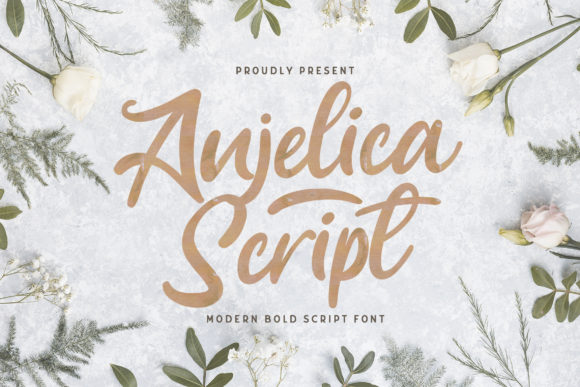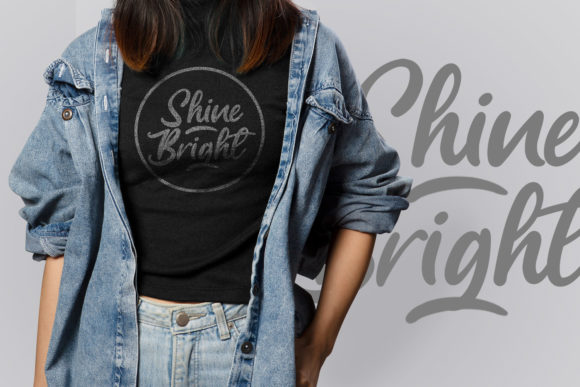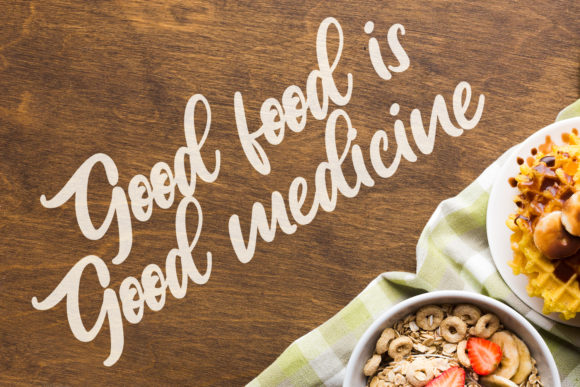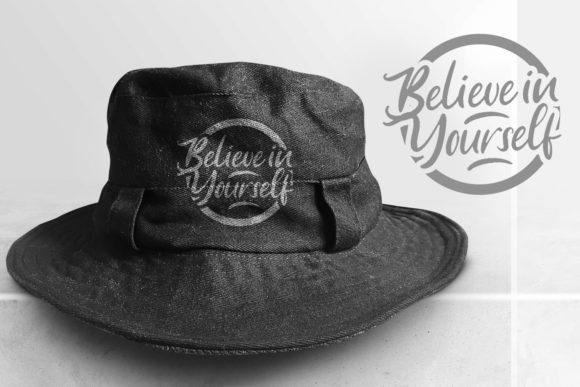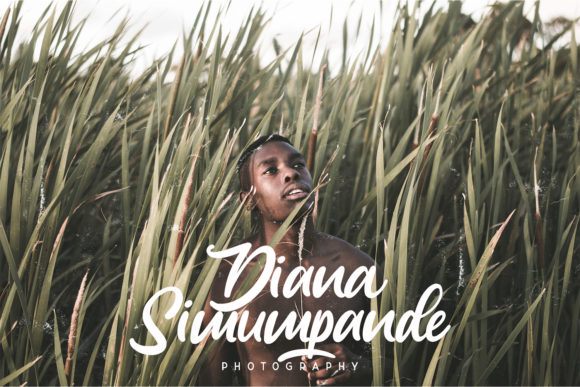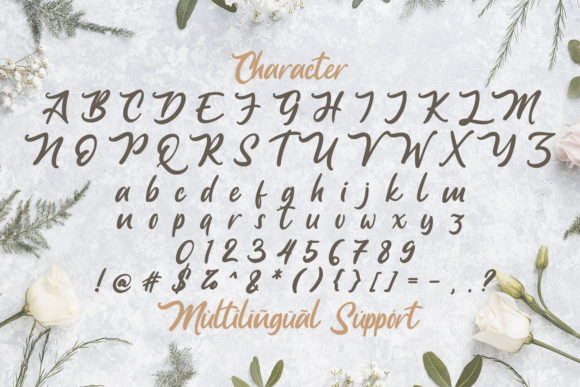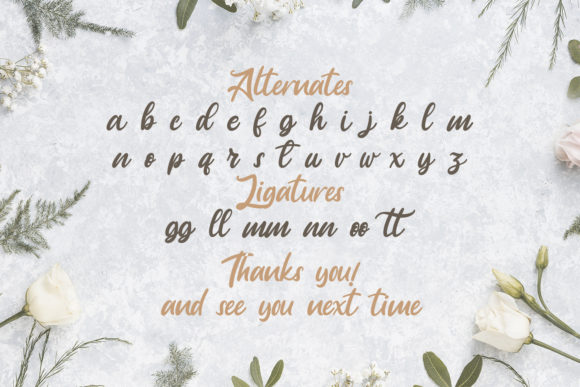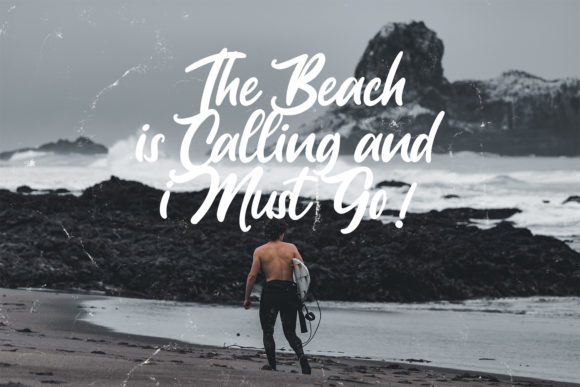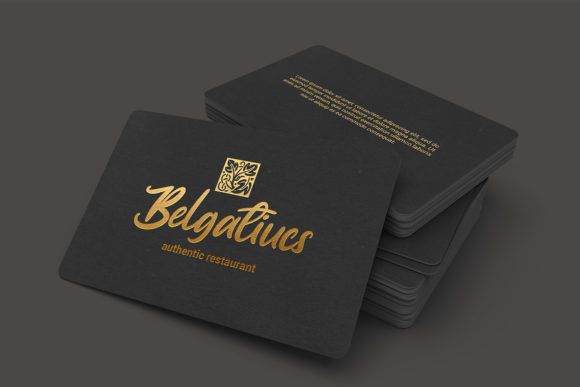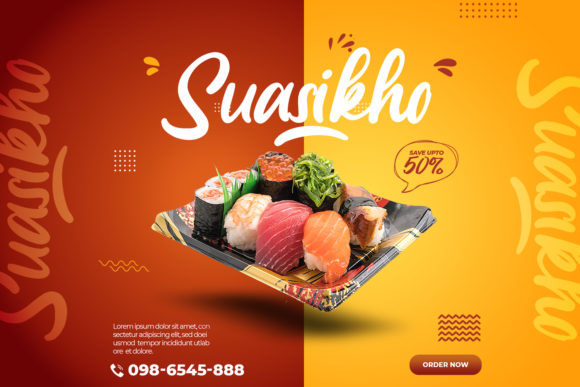
Anjelica Font
About Anjelica Font
Anjelica is a flowing and cute handwritten font. Get inspired by its authentic feel and use it to create gorgeous wedding invitations, beautiful stationary art, eye-catching social media posts, and cute greeting cards.